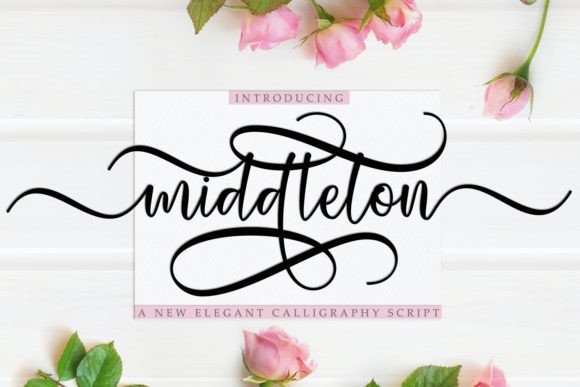
Middleton Font: The Key to Unlocking Typographic Brilliance
Journey into the realm of captivating typography with Middleton Font, a creation of Bexx Type. This exceptional script font, crafted with meticulous attention to detail, embodies the essence of sophistication and elegance. Step into a world where your designs transcend the ordinary and embrace the extraordinary.
Middleton Font: A Symphony of Style and Versatility
With its smooth, modern strokes and classic, calligraphy wavy design, Middleton Font is a symphony of style and versatility. Each character dances across the page with a graceful fluidity, capturing the essence of handwritten beauty. Whether you're crafting a stunning title, designing a captivating logo, or penning a heartfelt letter, Middleton Font elevates your words to new heights of visual appeal.
Middleton Font: A Font for Every Occasion
The versatility of Middleton Font knows no bounds. Its timeless appeal makes it the perfect choice for a wide range of design projects. From the delicate charm of wedding invitations to the bold impact of branding campaigns, Middleton Font seamlessly adapts to your creative vision. Let your words shine with elegance, whether you're creating marketing materials, social media graphics, or simply adding a touch of personal flair to your everyday correspondence.
Middleton Font: A Gateway to Creative Expression
Middleton Font isn't just a font; it's an invitation to unleash your creativity and embark on a journey of self-expression. With its extensive character set and PUA encoding, you'll have effortless access to a world of delightful glyphs and swashes. Experiment with different combinations, mix and match characters, and let your imagination run wild.
Middleton Font: A New Chapter in Your Design Journey